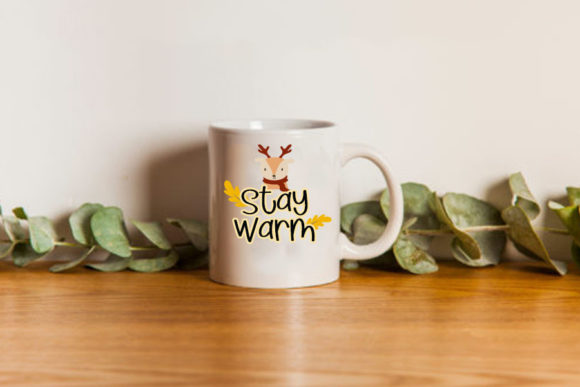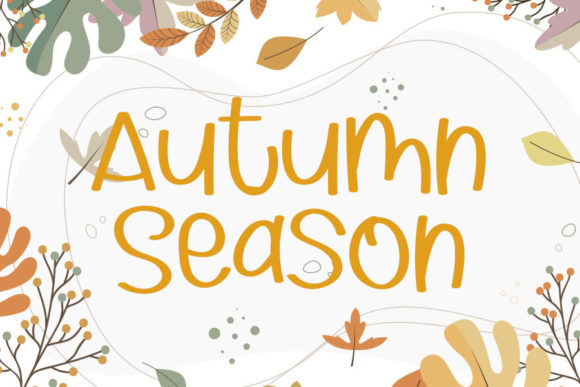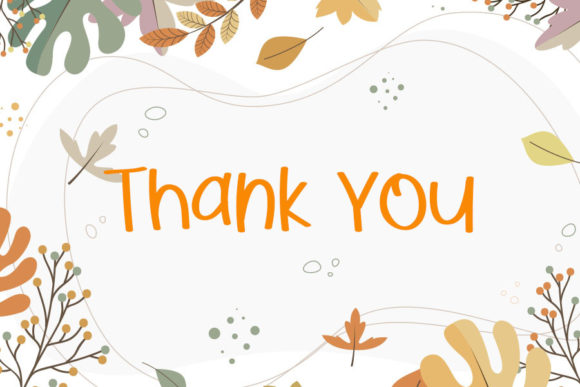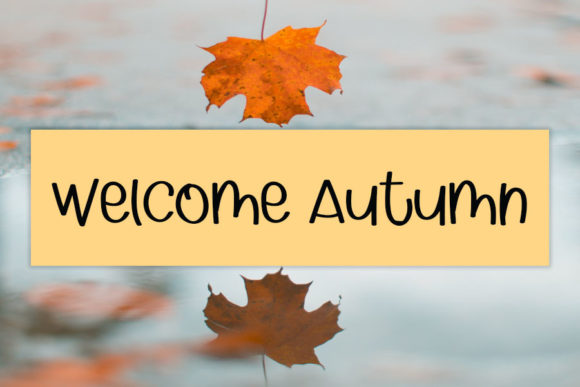
Hello Autumn Font
About Hello Autumn Font
Hello Autumn is a playful and quirky handwritten font. Its natural and unique style makes it incredibly fitting to a large pool of designs. The only limit is your imagination!